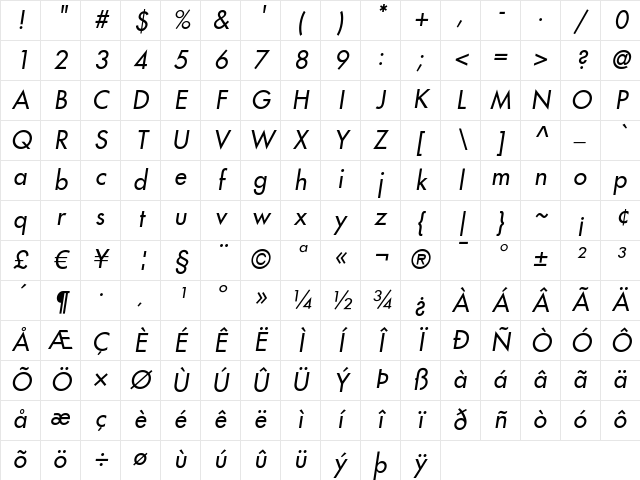
Futura LT Oblique
Design Context for Futura LT
Futura LT has a distinctly futuristic character, with geometric precision and clean angles that feel at home in technology, gaming, and sci-fi contexts. The slanted form adds forward momentum and visual energy. Its slender proportions lend an understated elegance to any composition.
Pro Tip: Try Futura LT with generous letter-spacing in UI labels and navigation - the geometric forms benefit from room to breathe.